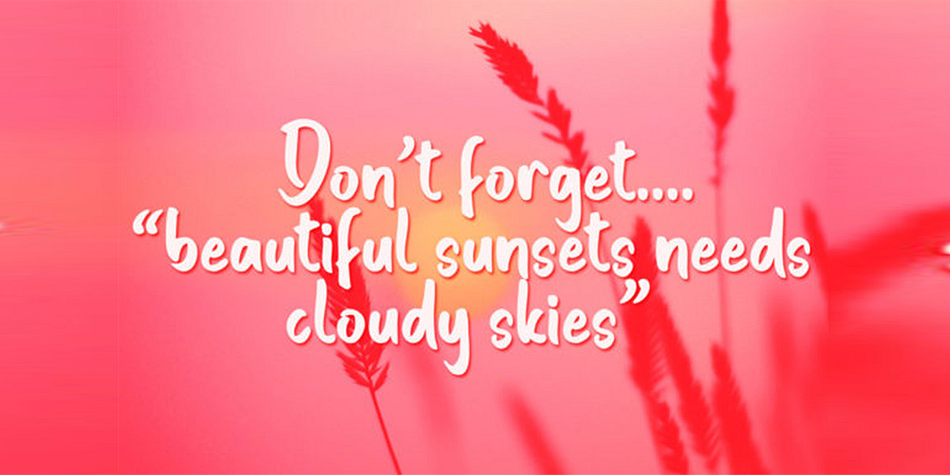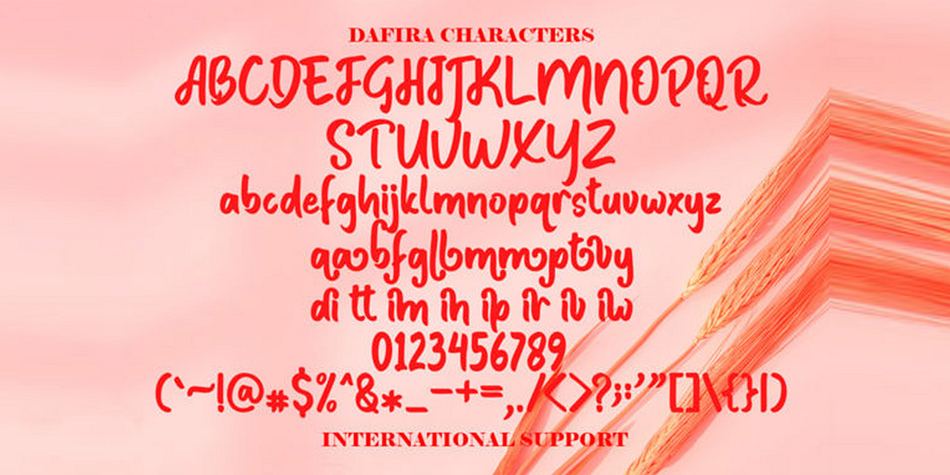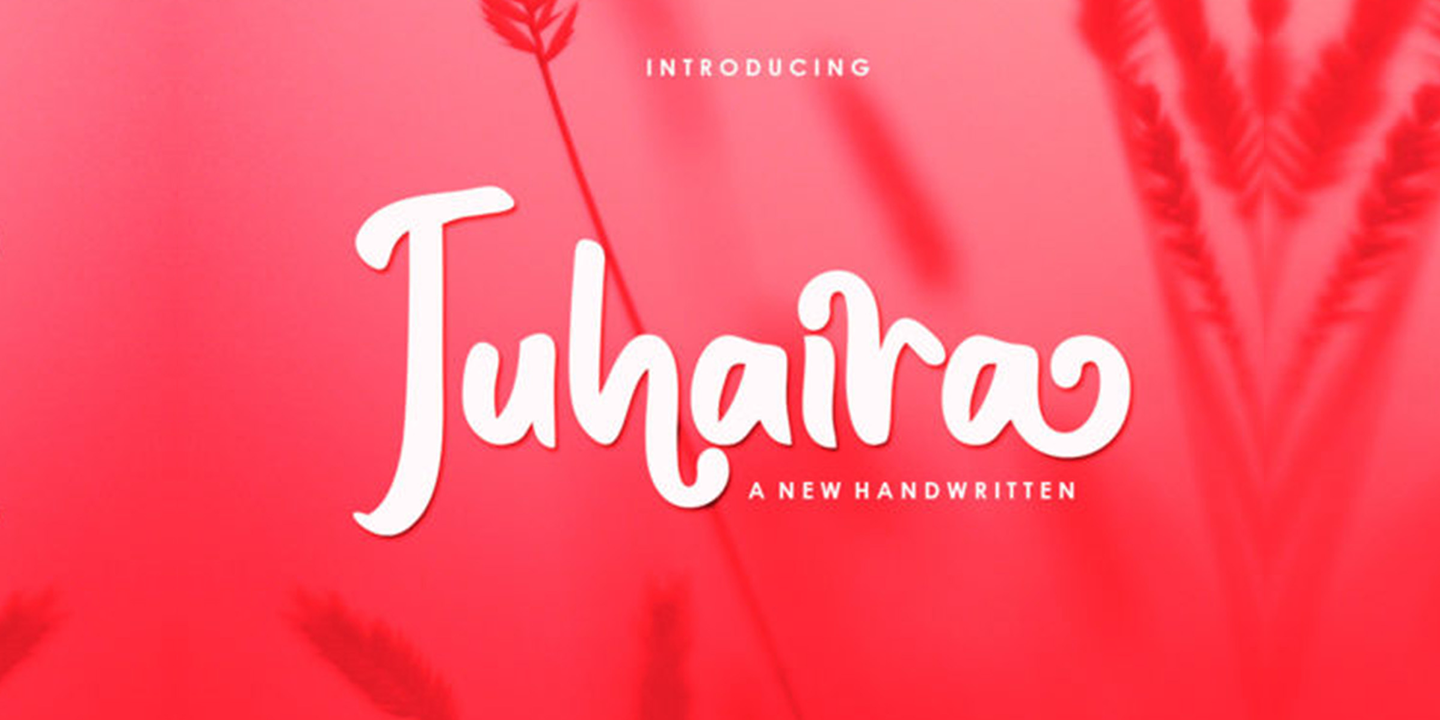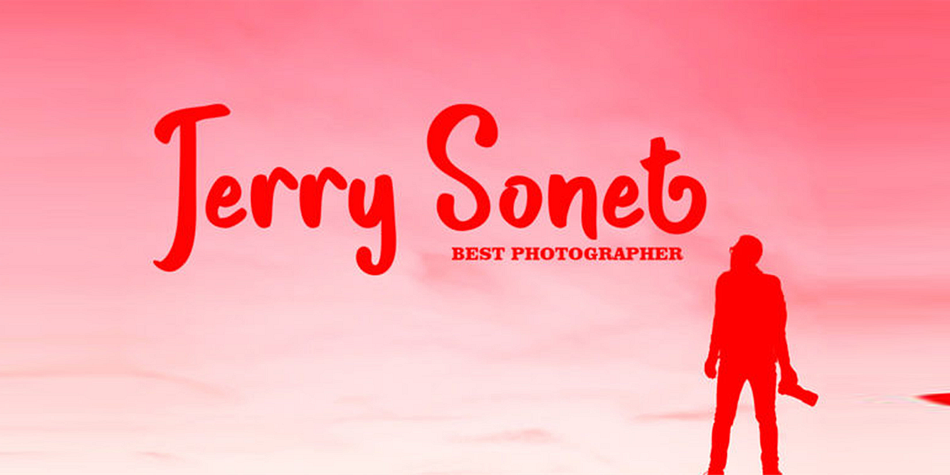
Juhaira
Juhaira is a brush script font family published by Gatype.
Juhaira is a paint brushed handwritten font. This versatile script font has a wide spectrum of applications ranging from greeting cards to headlines and is guaranteed to add an enchanting feel to your next project. Juhaira is PUA encoded which means you can access all glyphs and swashes with ease!